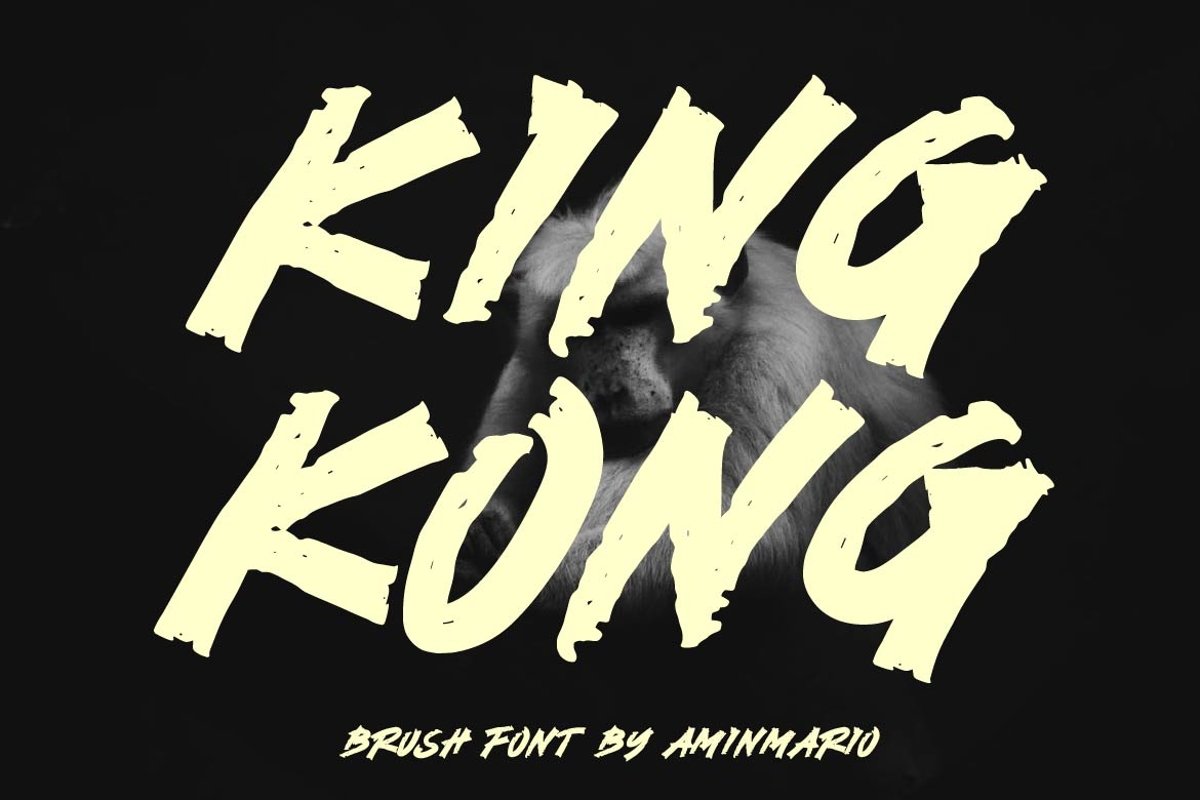
KING KONG
INTRODUCING
KING KONG is a supercharged font, with natural brush, quick strokes and sharp details.
KING KONG It contains ALL CAPS and numbers. Perfect for challenging jobs, titles, movie,logos, apparel, t-shirts, hoodies, quotes, product packaging, or anything that needs a typographic turbo-boost and a typographic unique style.